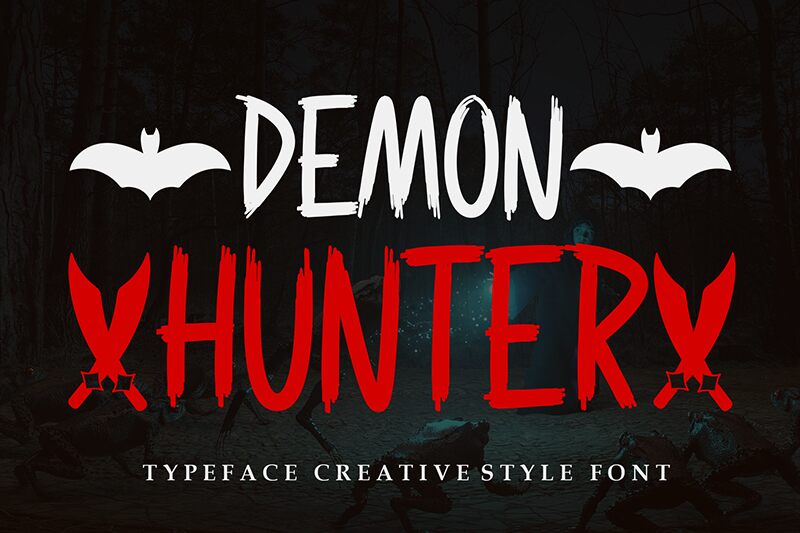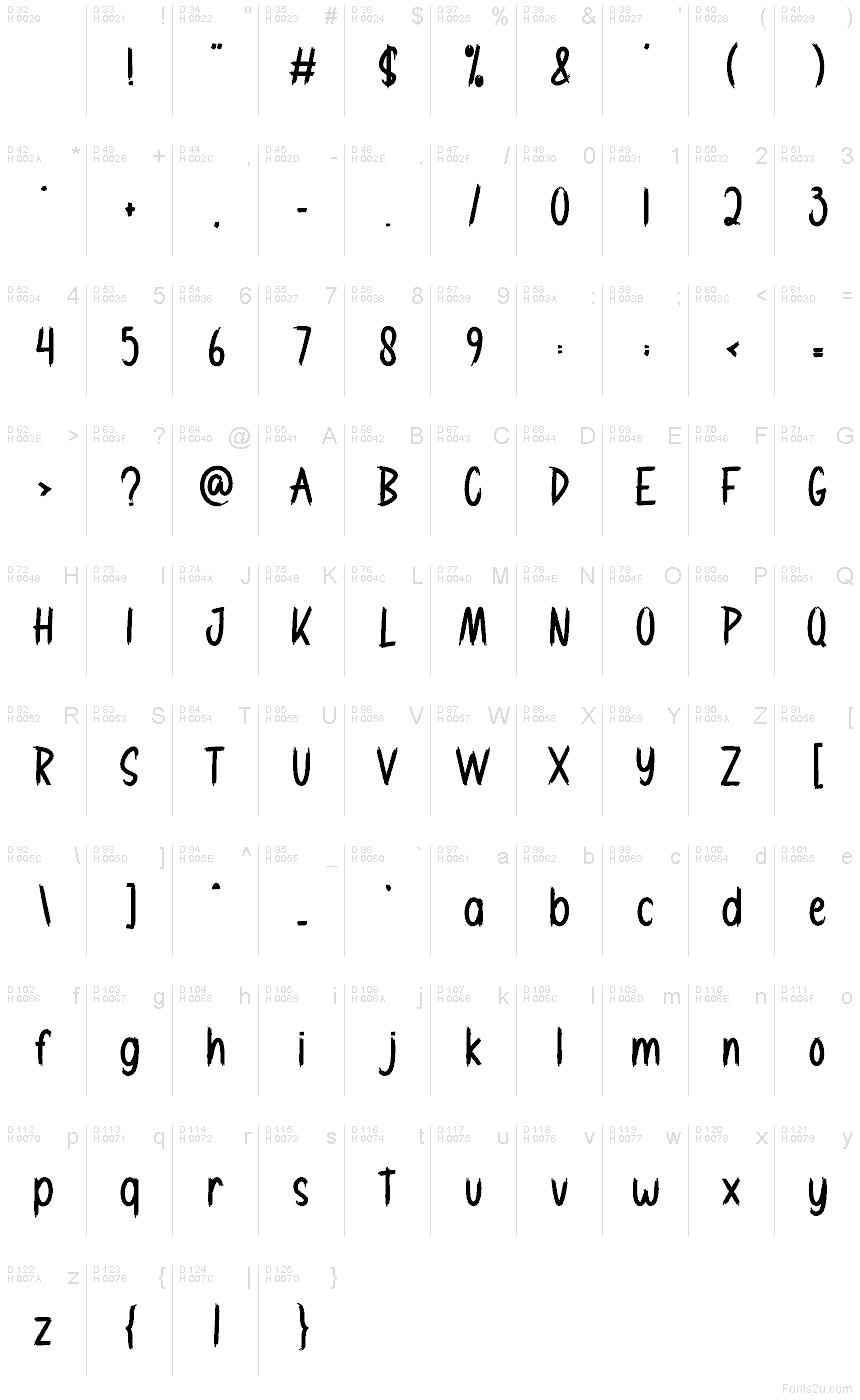
DEMON HUNTER
Demon hunter font by Andi Moz is a free Halloween display font. Built to thrill, its tall, narrow letters look slashed by a dry brush—ragged edges, streaky fills, and sharp flicks that feel like claw marks across the page. The rhythm is tight and urgent, so headlines snap with a tense, cinematic hiss.
This free font shines on haunted house posters, horror movie titles, party flyers, escape-room signage, game splash screens, and spooky merch stickers. Using Demon hunter, you get instant mood without extra art—just set it big and let the gritty texture do the work. Pair with a clean geometric sans for body copy to keep the scares legible.